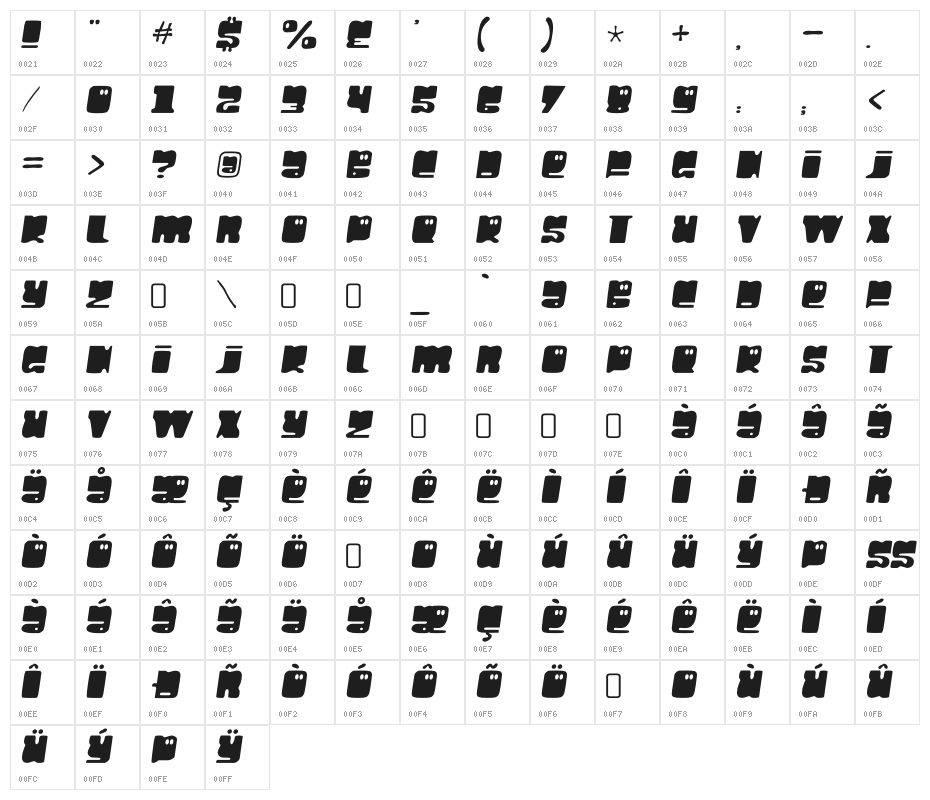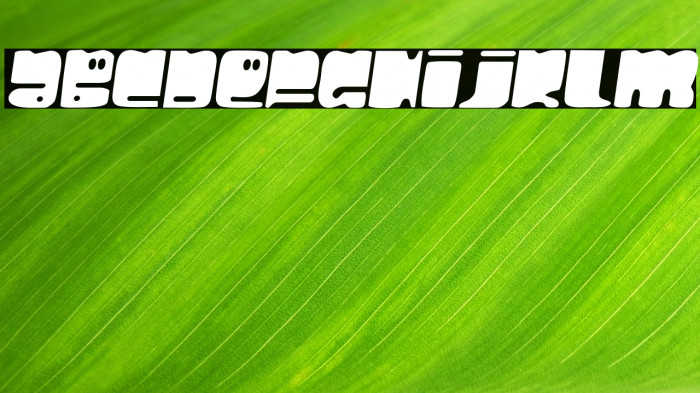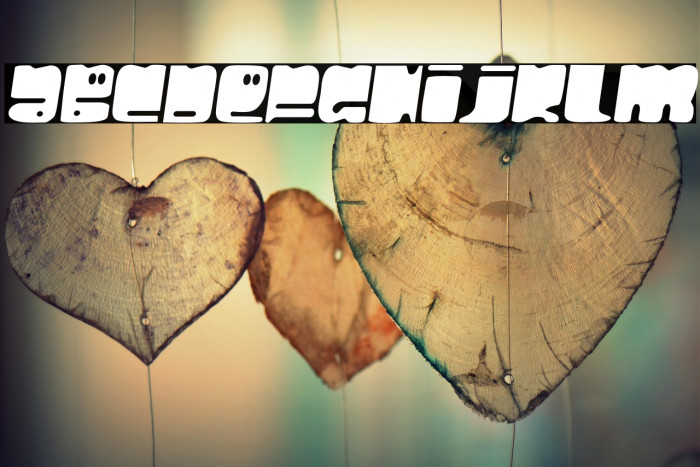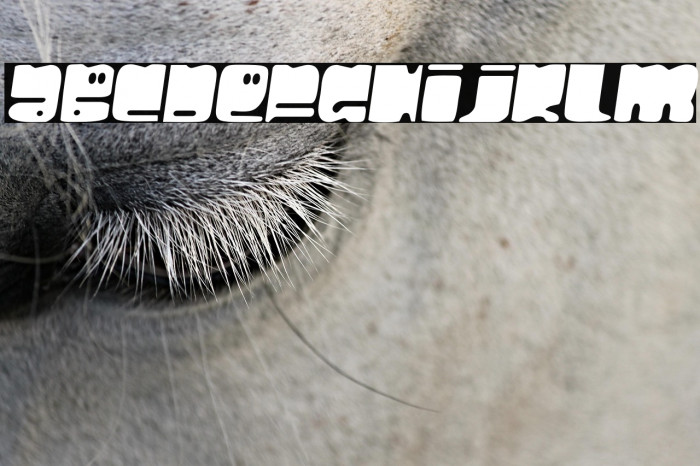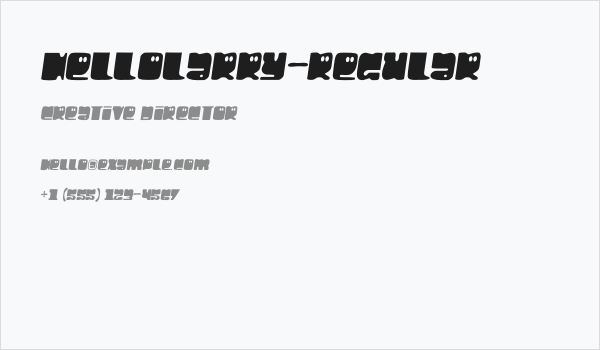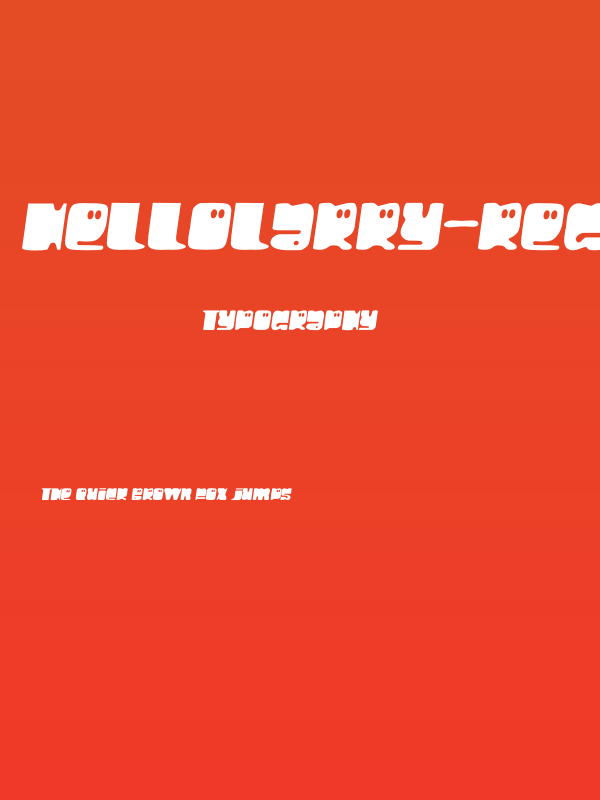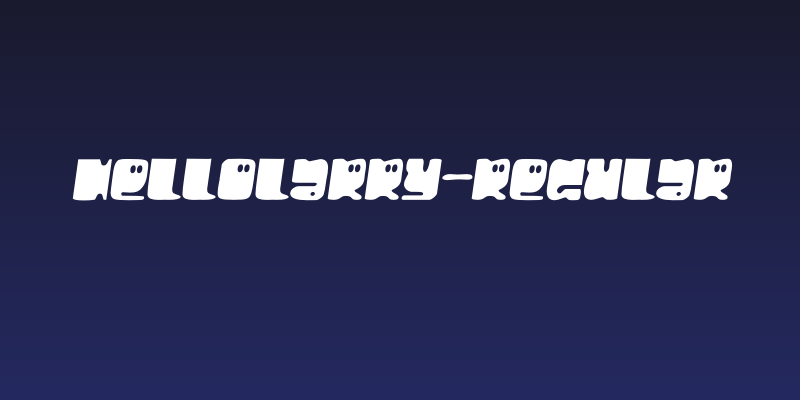
HelloLarry-Regular Font
HelloLarry-Regular Description
This playful and bold font features a unique, bubbly design with rounded edges and a whimsical appearance. Each character is distinctively crafted with a cartoonish flair, making it stand out with its eye-catching style. The letters are wide and have a consistent thickness, contributing to a cohesive and uniform look. The font includes both uppercase and lowercase letters, numbers, and a variety of special characters, all maintaining the same playful aesthetic. Its bold and friendly design makes it ideal for projects that require a fun and engaging visual element.
| Width | Expanded |
| Overall Style | Playful |
| Proposed Projects | Ideal for children's books, playful branding, party invitations, and creative posters. |